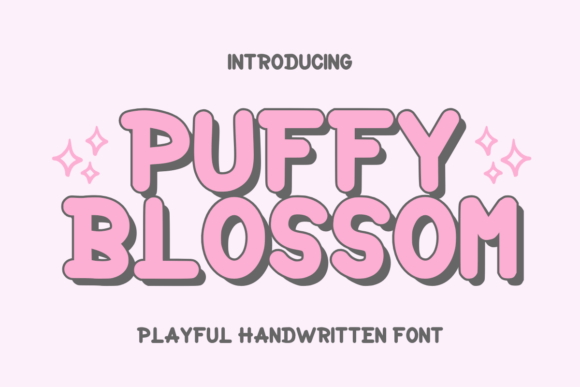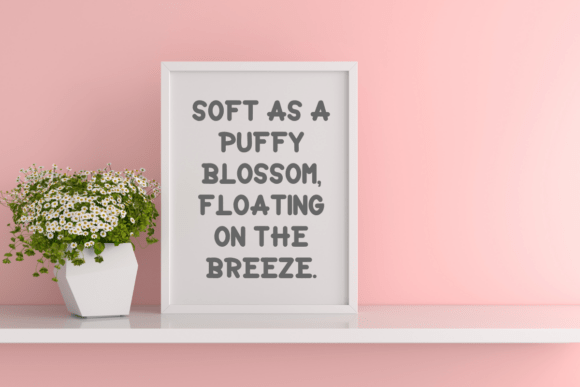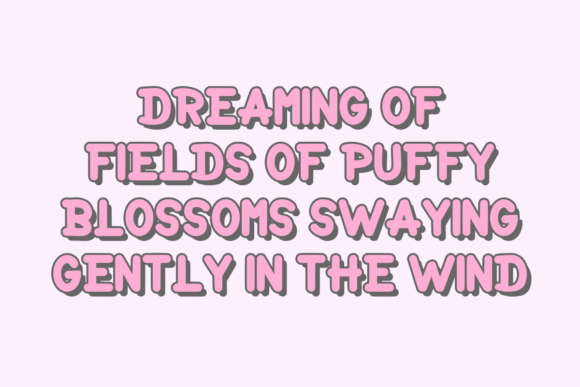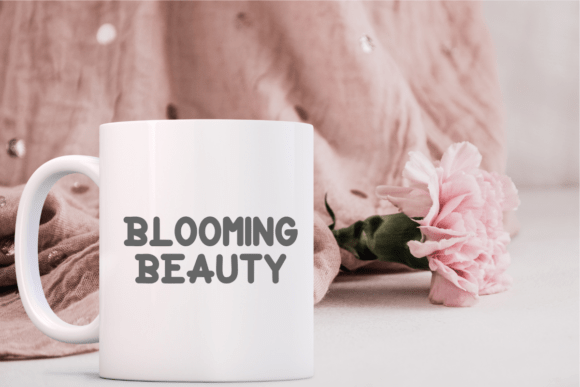
Puffy Blossom Font
About the Puffy Blossom Font
Crafted with precision, the Puffy Blossom Font is ready to bring your ideas to life. Puffy Blossom is a delightfully chunky handwritten font bursting with cuteness and charm. With its bubbly, bold strokes and playful shadow effect, it brings a cartoon-like feel that’s perfect for children’s projects, kawaii branding, fun stickers, and cheerful social media graphics. It’s sweet, soft, and full of fun personality.
Puffy Blossom’s playful energy makes it ideal for headlines, short text blocks on packaging, and eye-catching social media posts. It excels in applications where a friendly, approachable aesthetic is desired, such as children’s books, kawaii-themed branding, and playful product labels. However, its chunky nature and shadow effect make it unsuitable for body text or UI elements requiring high readability.
Consider pairing Puffy Blossom with a clean sans-serif like Open Sans for a balanced contrast, or a more geometric sans-serif like Montserrat for a modern twist. For a softer feel, a delicate script font could complement its bubbly forms. Avoid pairing it with overly ornate or heavily textured fonts, which might clash with its playful simplicity.
The overall personality is undeniably cheerful and approachable, leaning towards a cute and slightly whimsical aesthetic. This makes it a strong choice for brands targeting younger audiences or those promoting products with a fun, lighthearted vibe.
Puffy Blossom Font Usage Examples
Puffy Blossom Font Example